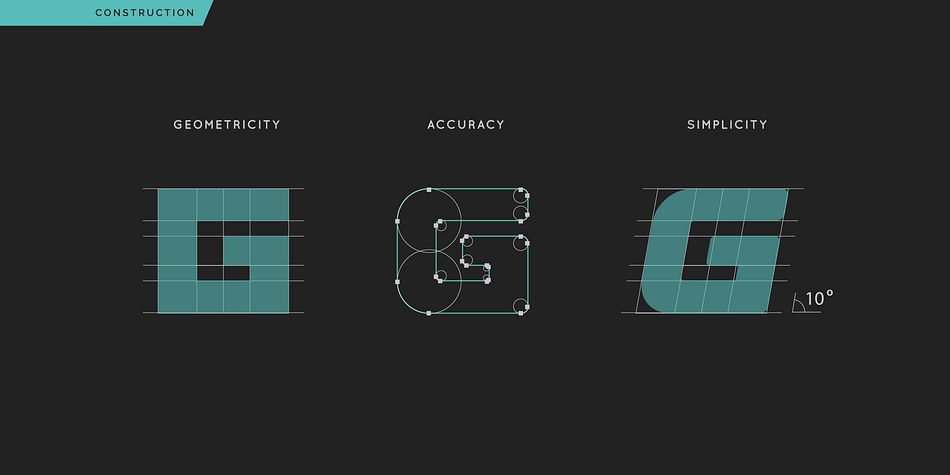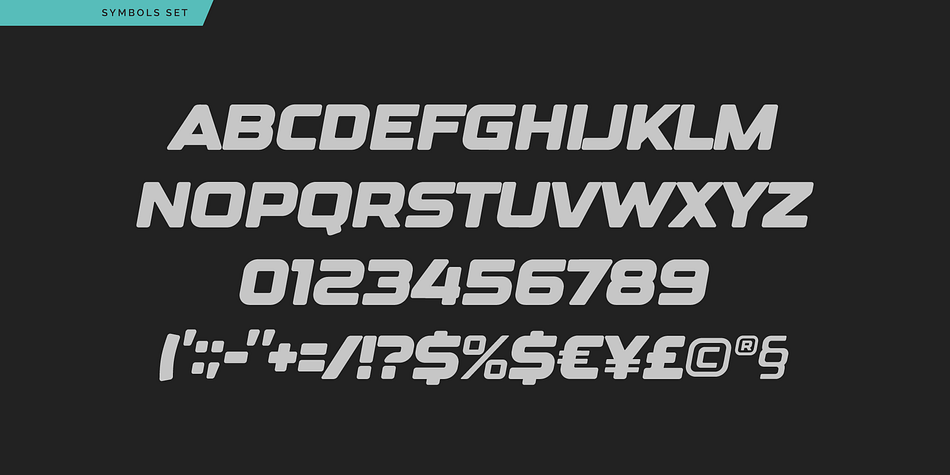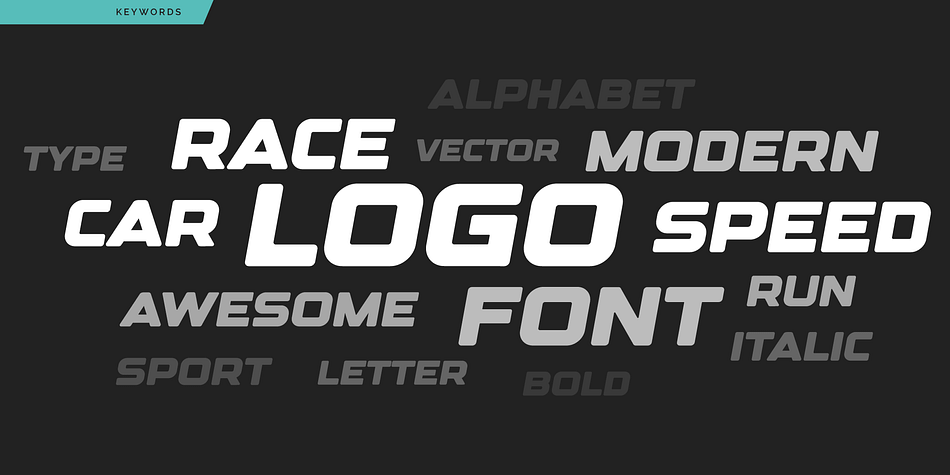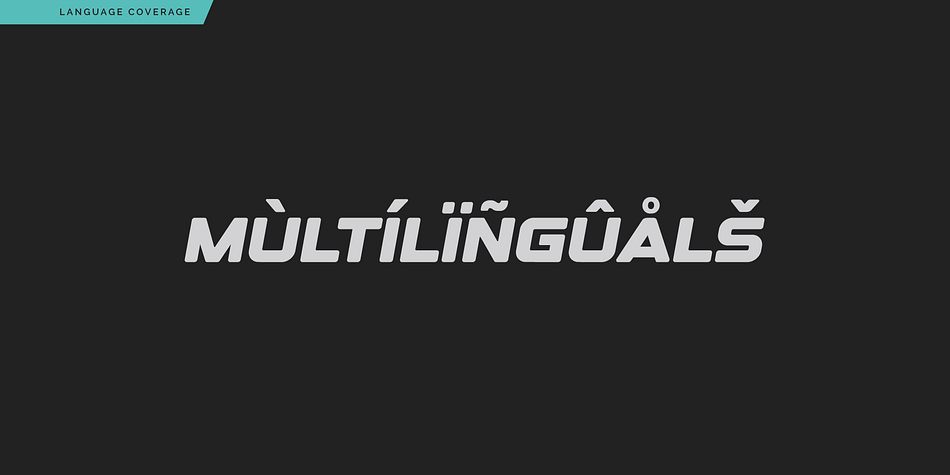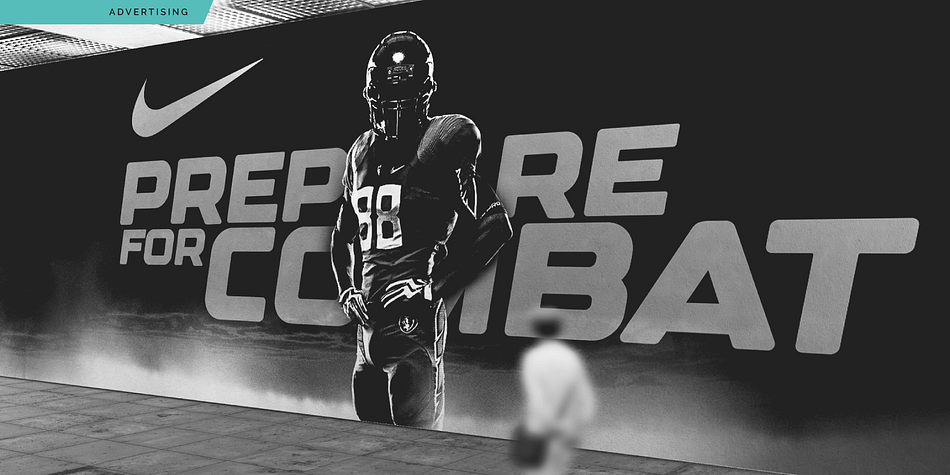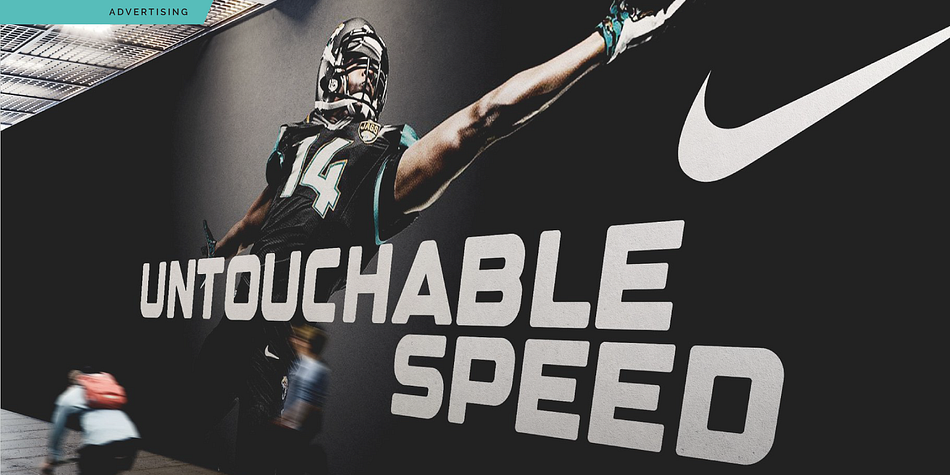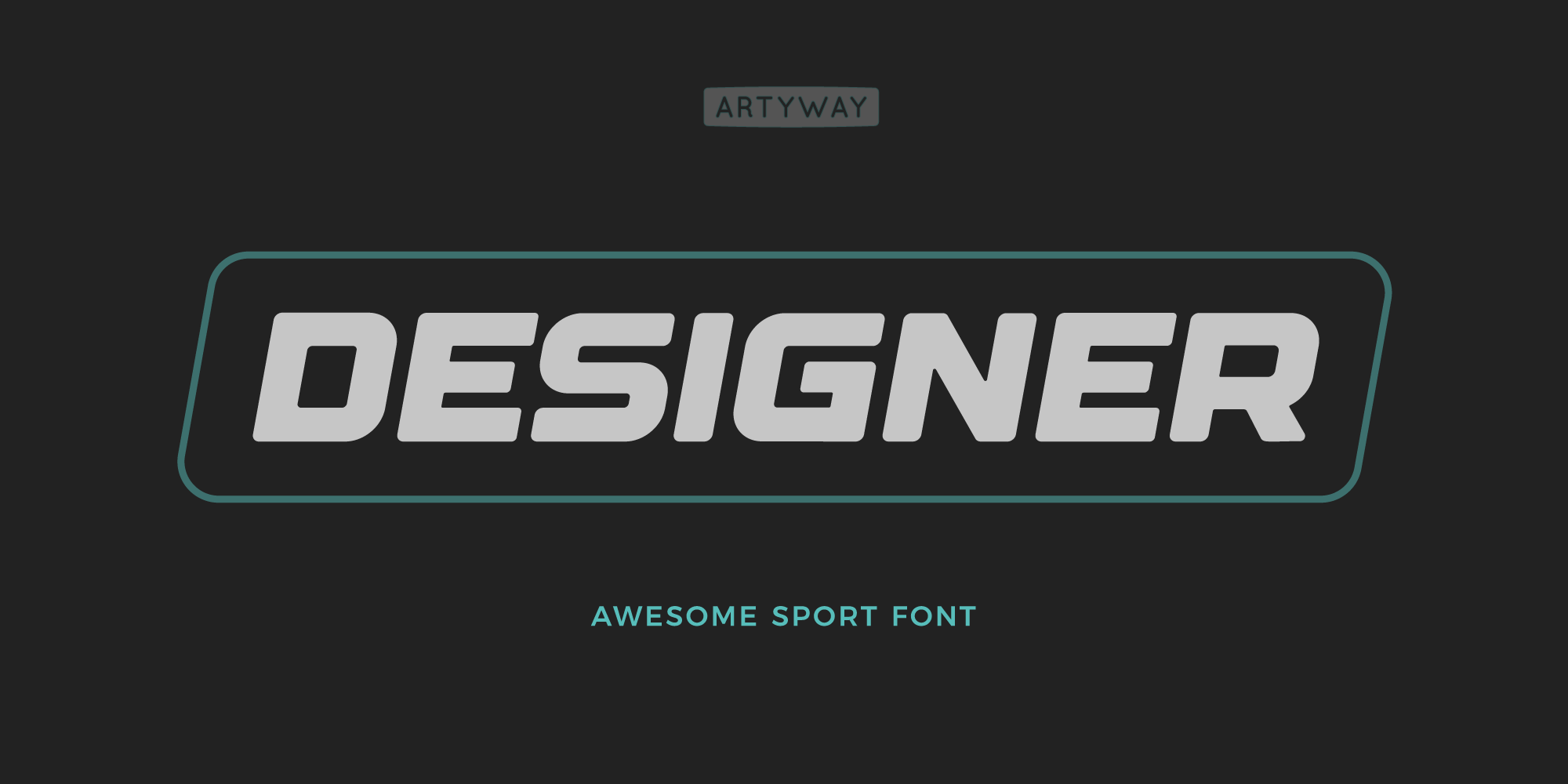
Design
Designed by Yehor Lisnyi, Design is a display sans font family published by Artyway.
I suggest you to pay attention to the “Design” font.
It’s bold, with softened corners and some slope for dynamic effect. “Design” font has a unique charm and easy visual readability, so it’s perfect for headlines, whether for sports events, automotive posters, logo or monograms designs.
Uppercase and lowercase english letters
All punctuation
Numbers
Multilanguales